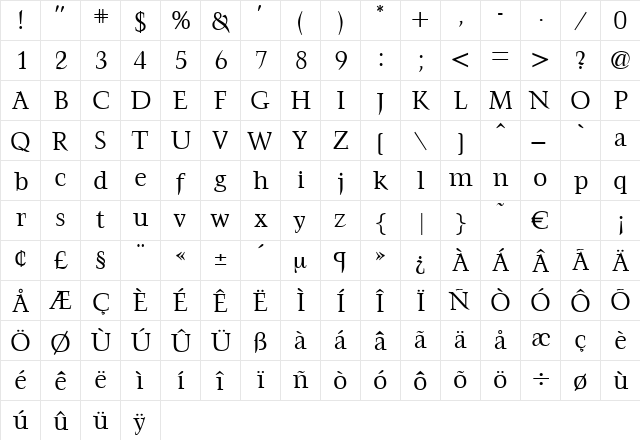
FrancoisRegular Regular
Design Context for FrancoisRegular Typeface
FrancoisRegular is a composed and adaptable typeface that performs quietly and consistently across a wide range of design contexts.